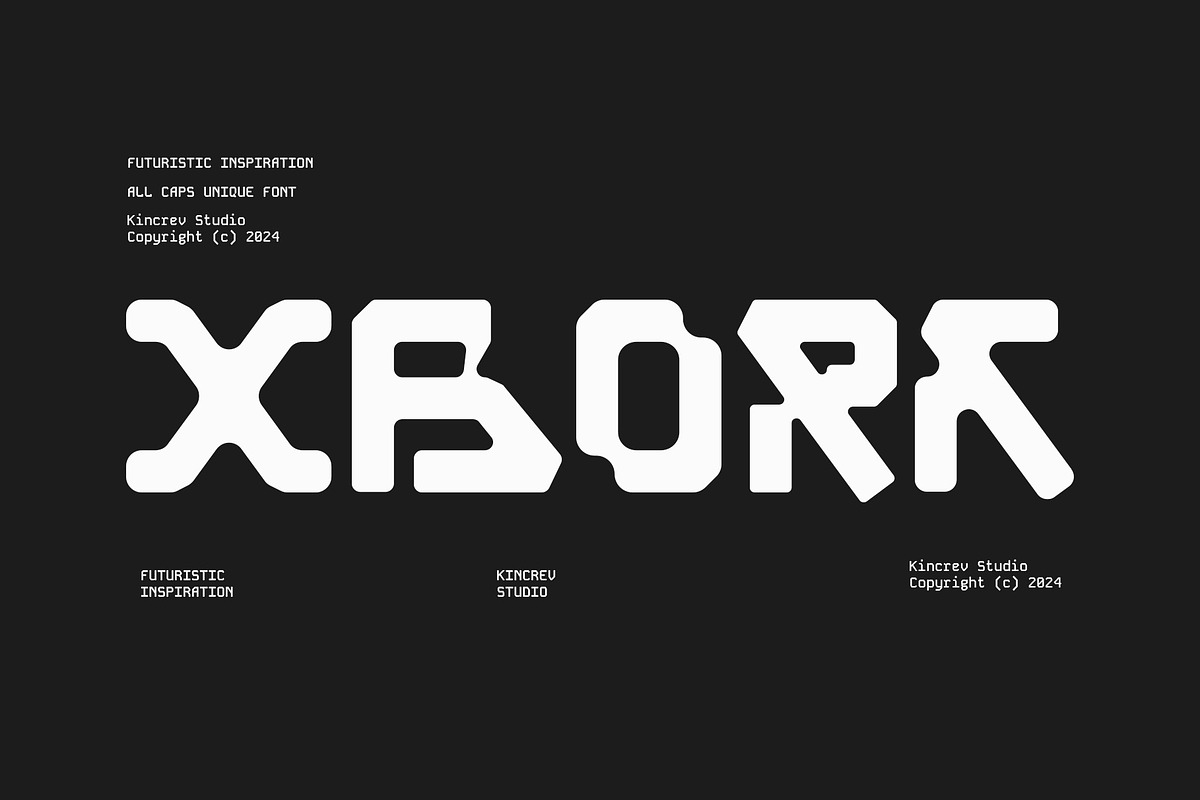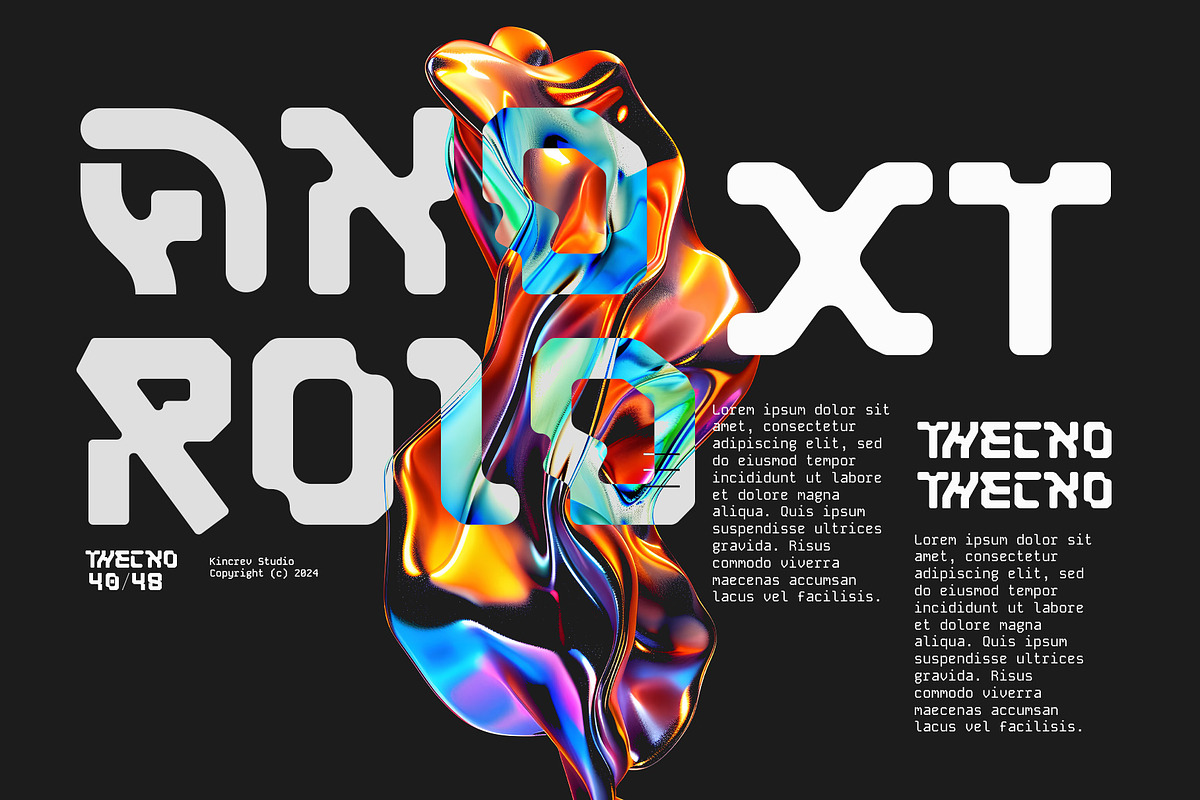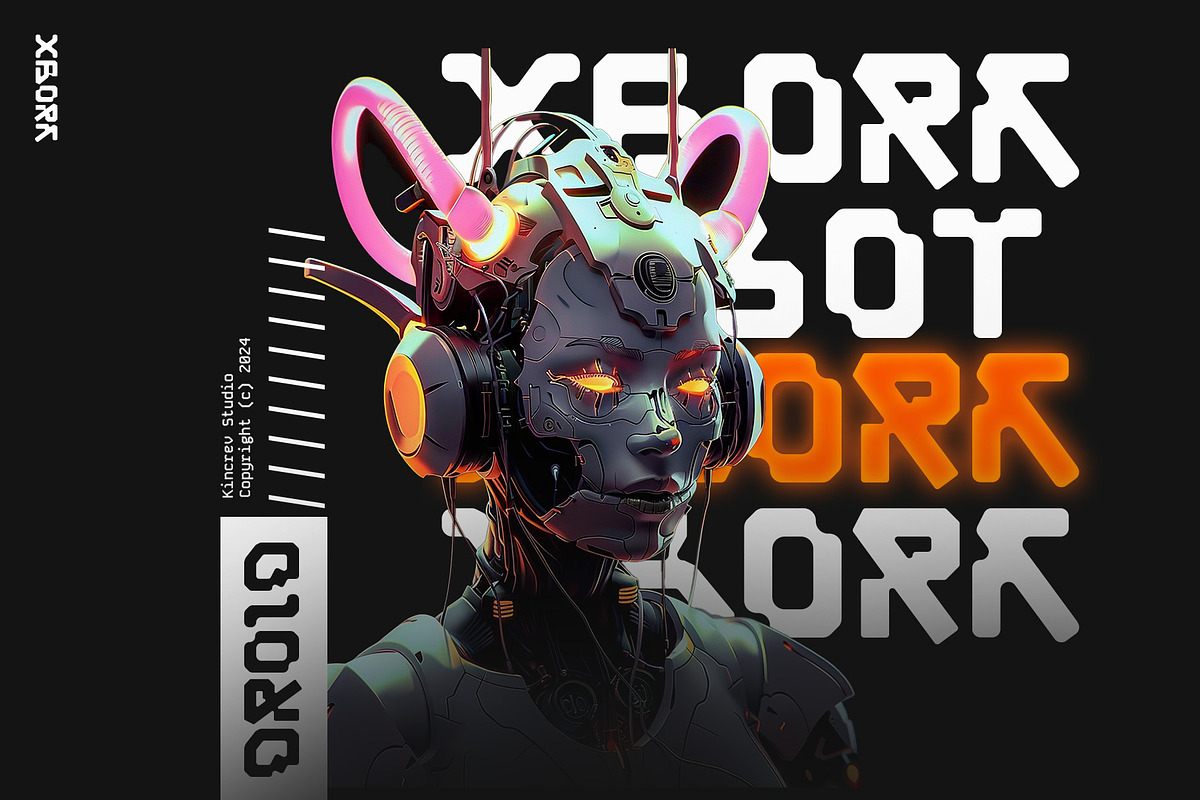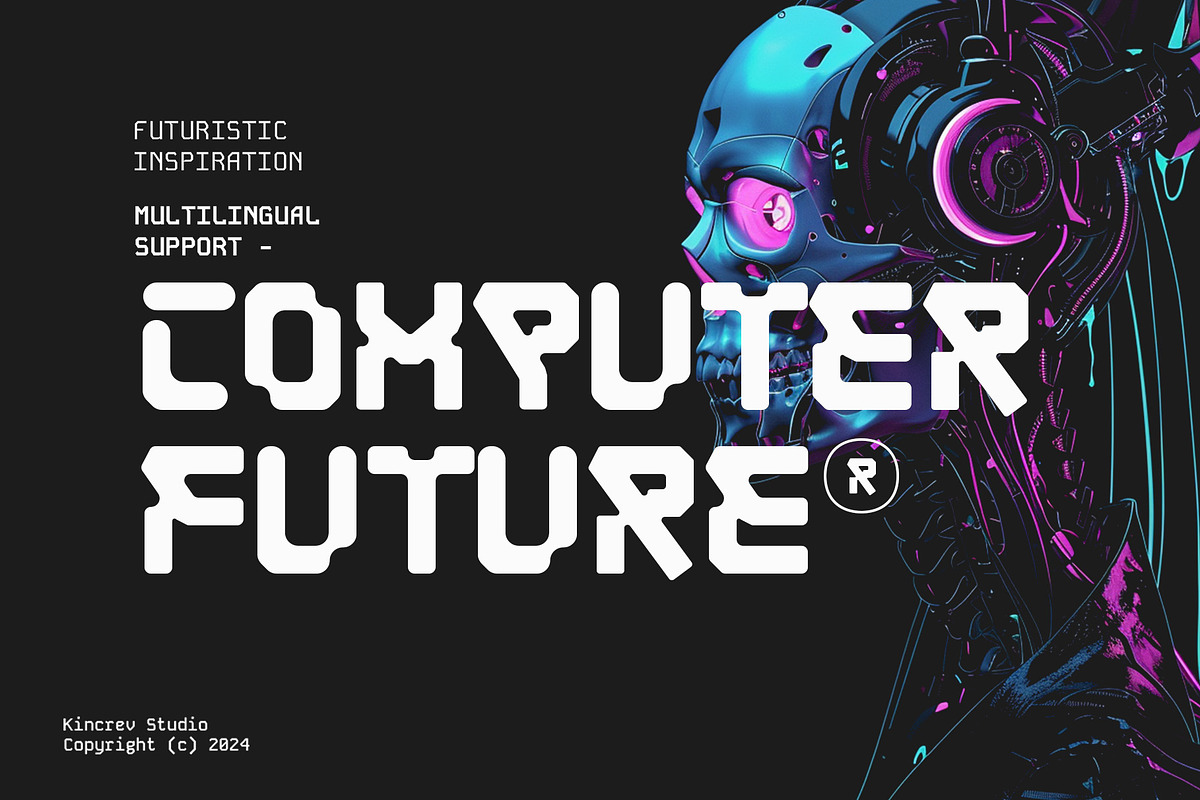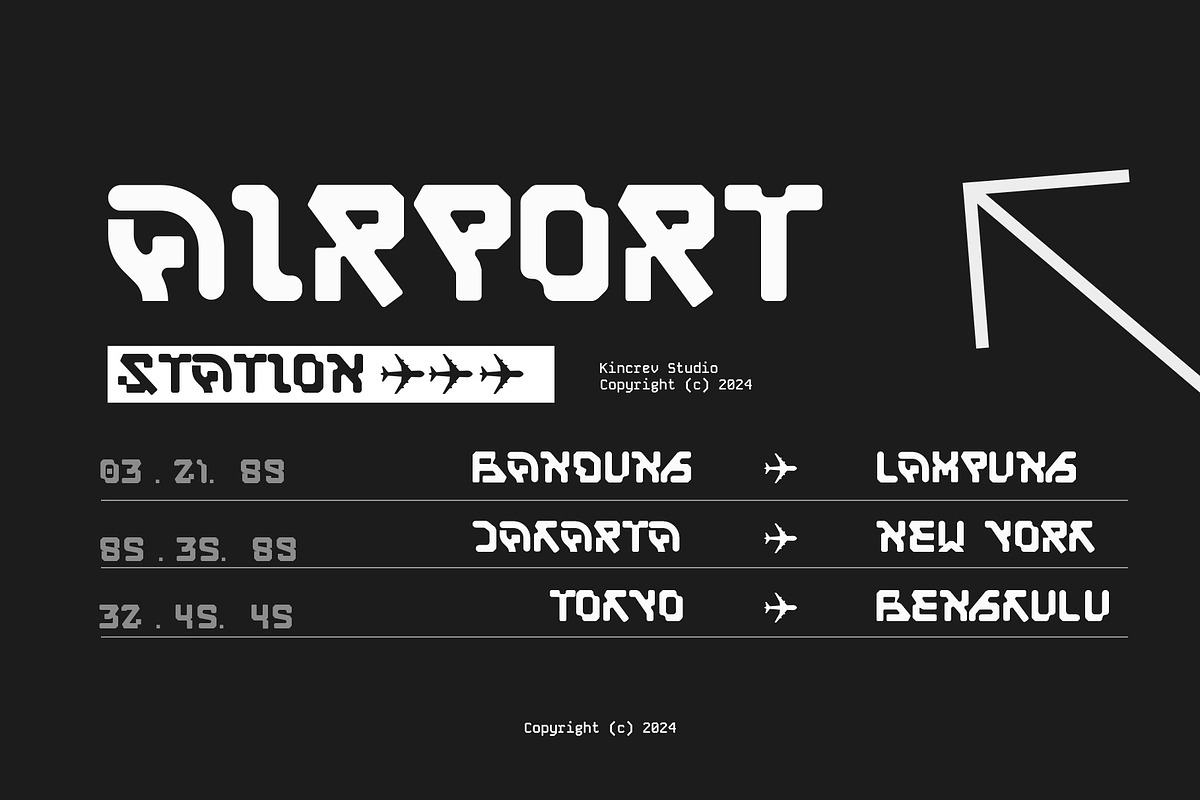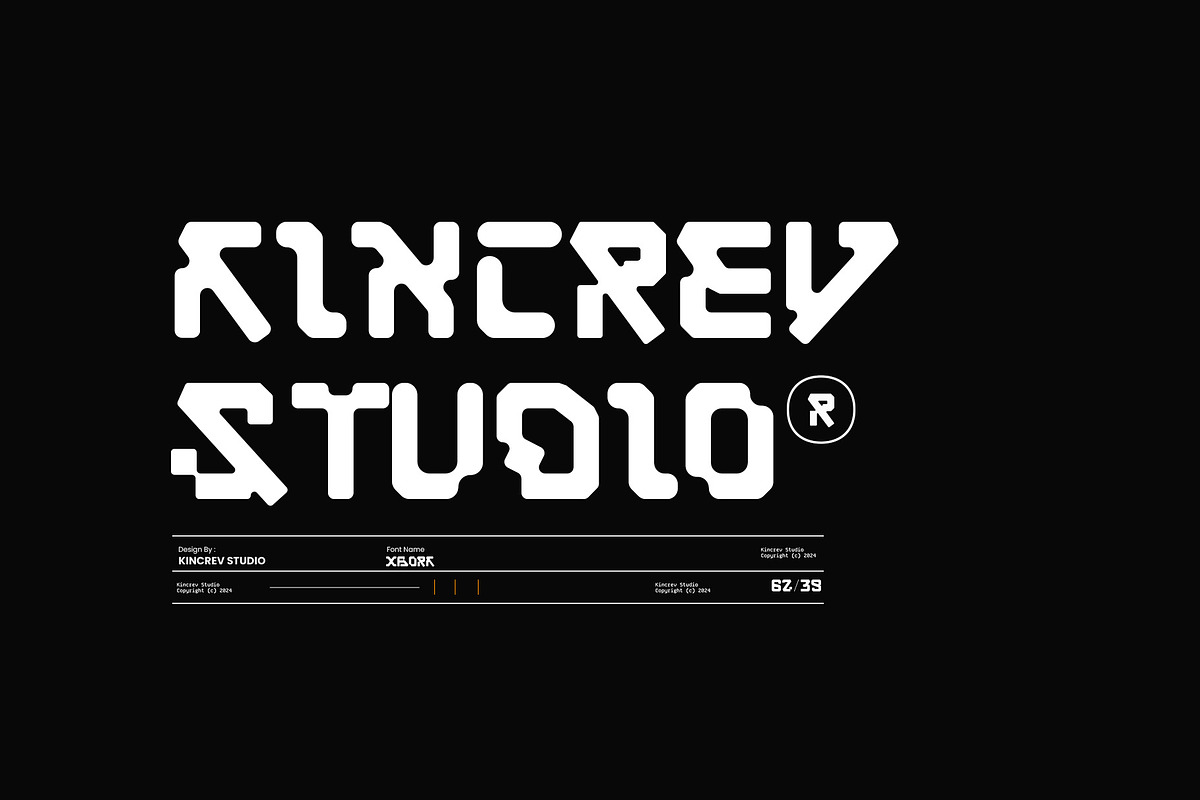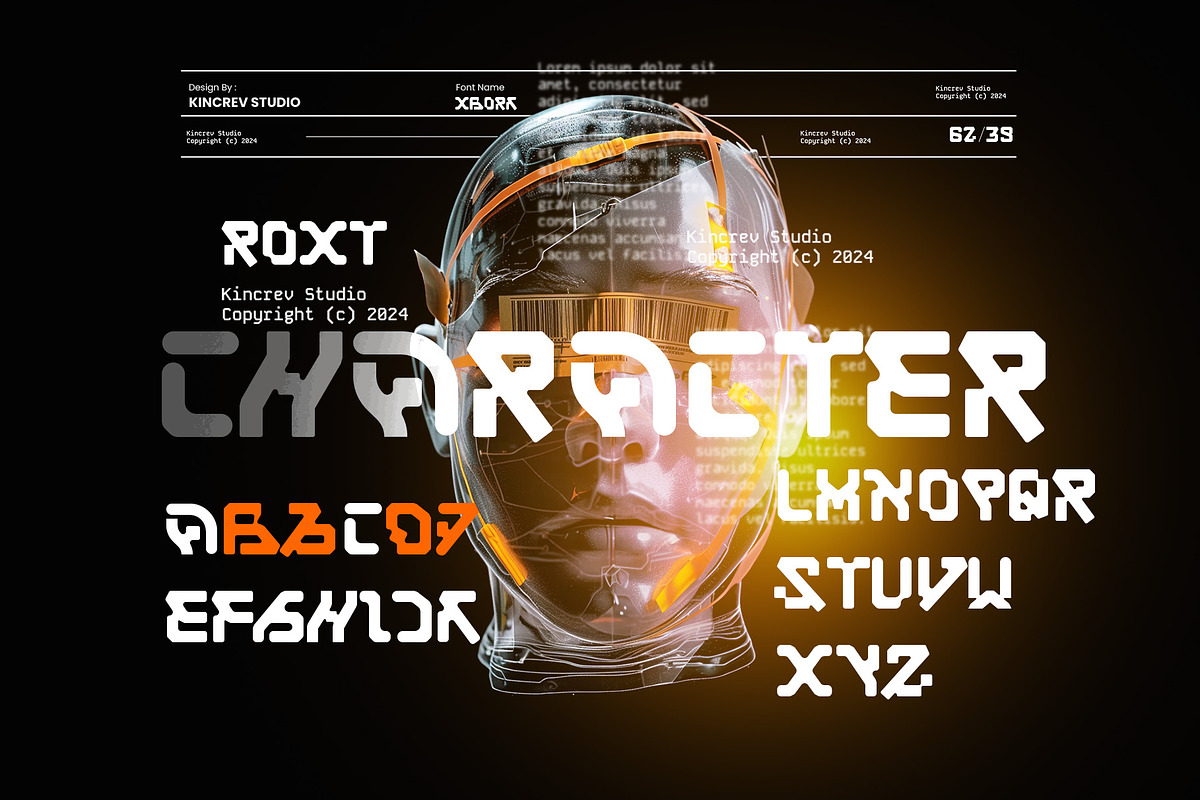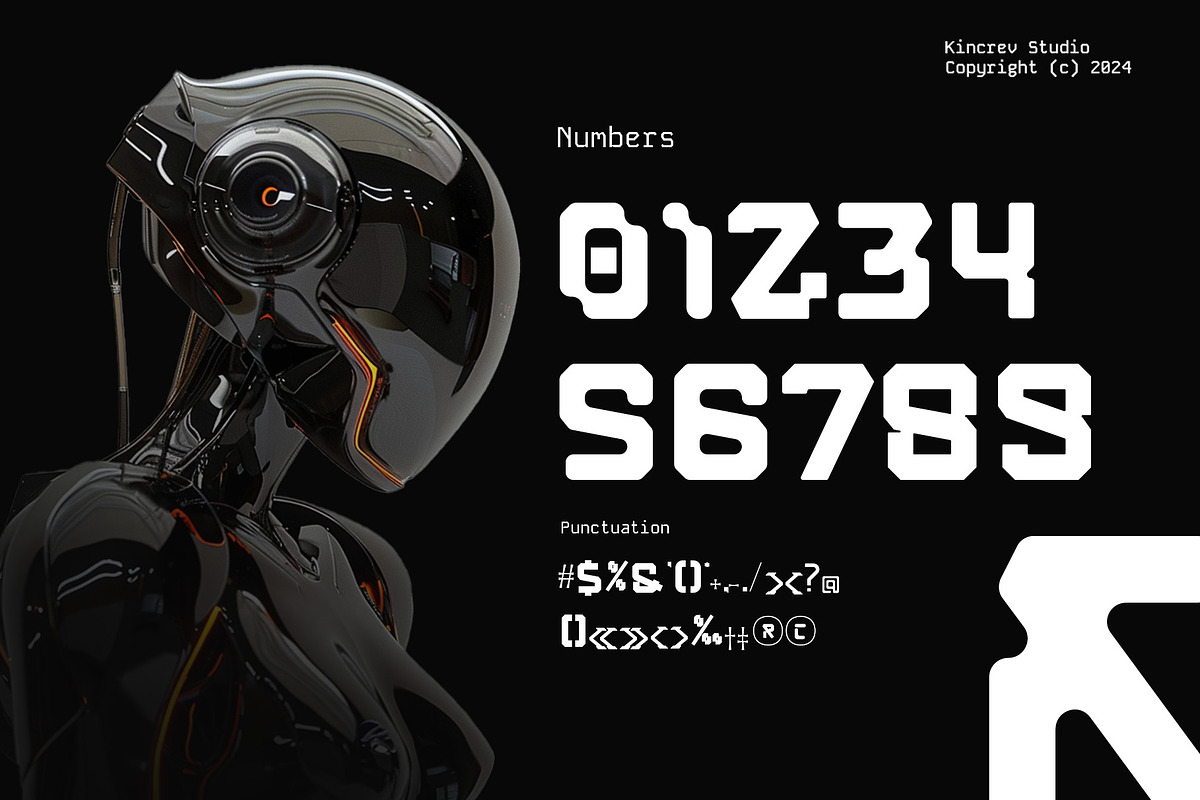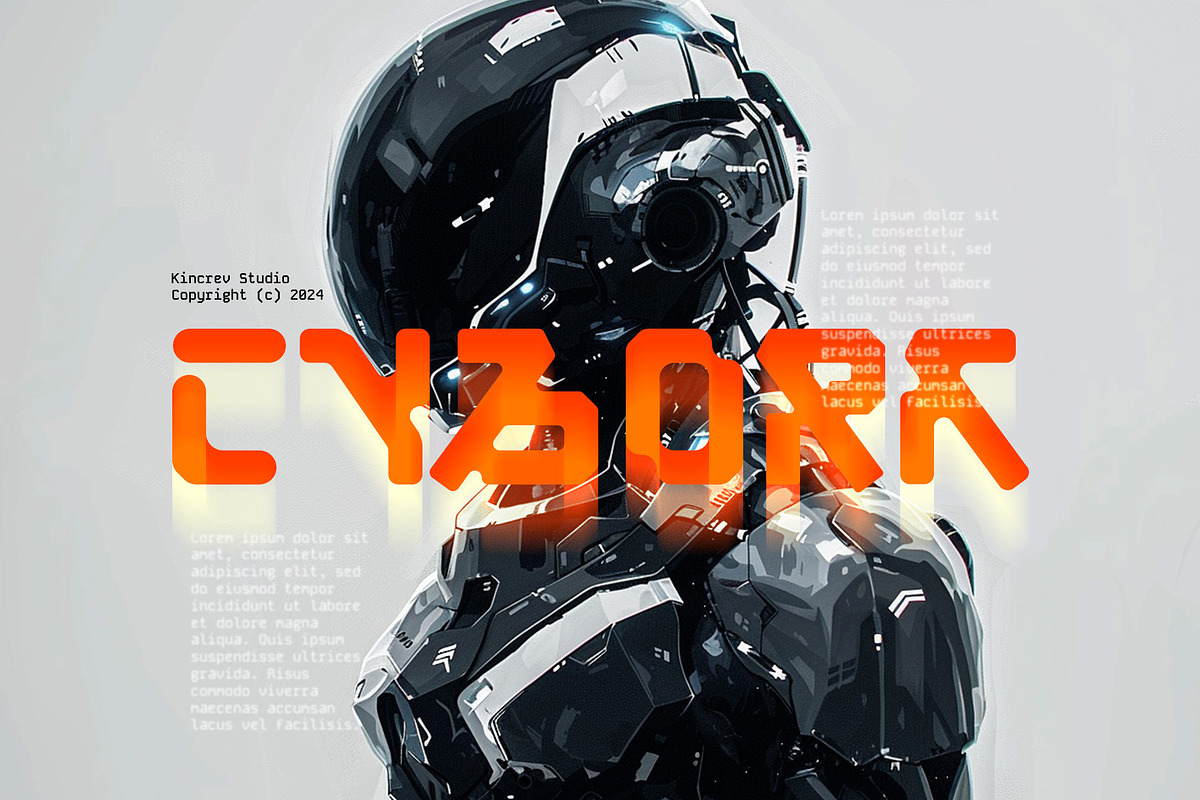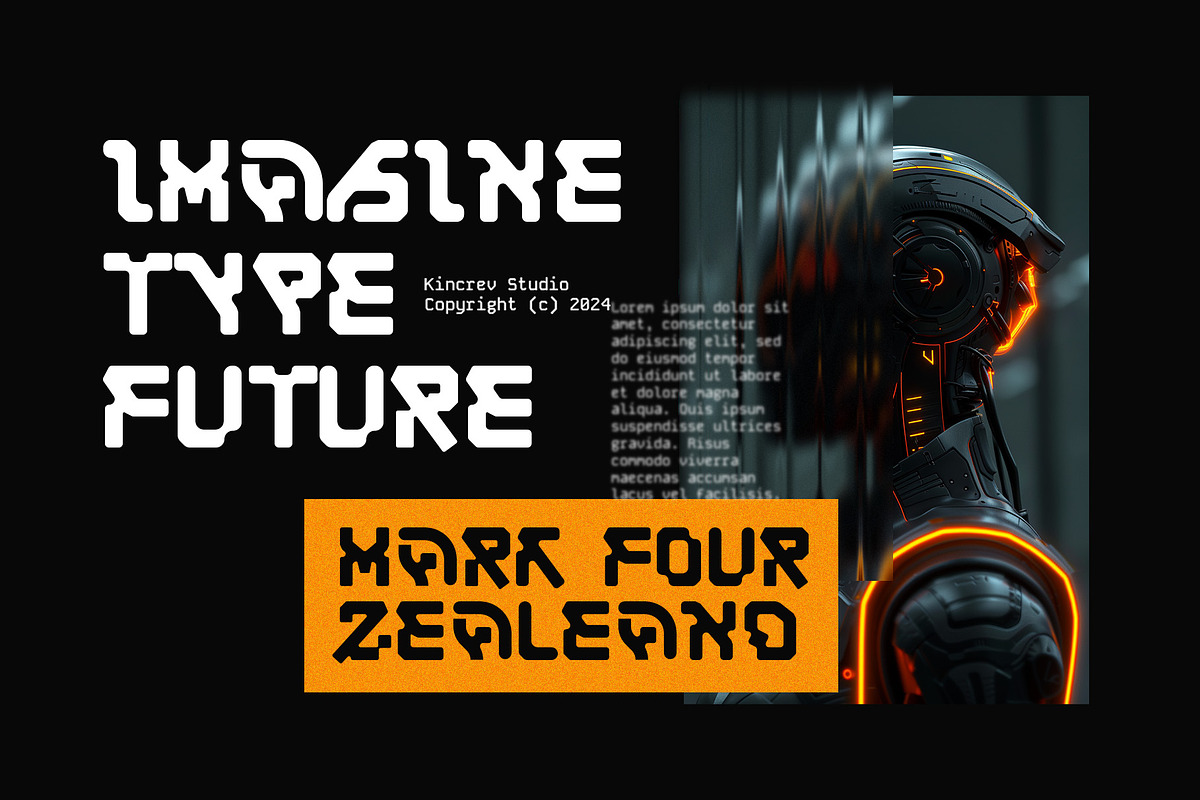
xbork
Hello, Everyone! Ready to make your branding design outstanding? If you need to create a futuristic, bold and creative look for your business, work on a poster for an event, or whatever your projects are, xbork is the perfect one for you.
xbork, a Futuristic Font is font for you to get your designs with futuristic, bold and creative look. It is made in all Caps letters which are easy on the eyes and nice to look at, and easy to read. This font is designed to bring your brandings to life and add a touch of modernity, fun and style.
xbork fits for any design projects, such as posters, banners, logos, book covers, album covers, quotes, invitations, greeting cards, name cards, headings, printed products, merchandise, social media, etc. Find out more ways to use this font by taking a look at the font preview.